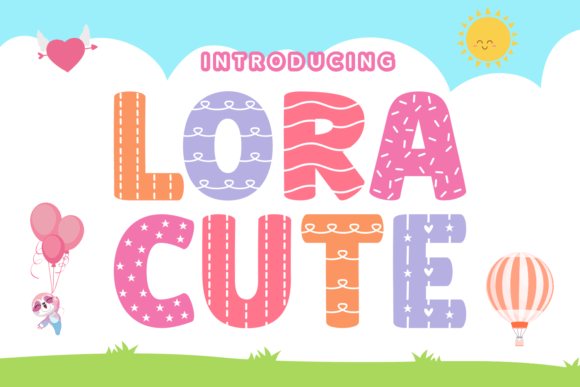
Some fonts don’t just decorate your words—they add a sense of personality, playfulness, and pure joy. Lora Cute is exactly that kind of font: whimsical, decorative, and full of cheerful energy that instantly transforms any design into something more inviting and delightful.
Whether you’re designing kids’ book covers, sweets packaging, party invitations, or playful brand logos, Lora Cute brings a youthful vibe that’s perfect for projects meant to make people smile.
What is Lora Cute Font?
Lora Cute is a decorative display font inspired by playful, hand-lettered styles. While the original Lora font is a balanced, modern serif created for editorial design and digital readability, Lora Cute spins off in a completely different direction: it’s crafted to be fun, lighthearted, and packed with personality.
With its curvy strokes, whimsical flourishes, and friendly shapes, Lora Cute doesn’t just fill space—it fills it with charm and creativity.
Why Designers Love Lora Cute
In design, fonts do more than display words—they create mood, style, and emotion. Here’s why so many designers love Lora Cute:
✅ Cheerful personality: Instantly adds a friendly, youthful vibe.
✅ Decorative appeal: The unique swirls and playful details stand out in titles and packaging.
✅ Versatile for fun projects: Works beautifully in kids’ designs, sweets branding, crafts, and more.
✅ Easy to read: Despite its decorative style, it keeps a level of legibility that makes it usable in practical designs.
✅ Memorable: Perfect for brand names or products that want to look unique and approachable.
Simply put, Lora Cute can turn ordinary words into something special and visually captivating.
Creative Ways to Use Lora Cute Font
Because Lora Cute is decorative, it works best in designs where fun and creativity matter most. Here are a few design ideas where it truly shines:
🎉 Children’s Book Covers & Titles: Make story titles pop with character and warmth.
🍭 Sweets & Candy Packaging: Match the sugary, colorful vibe of your product.
👕 Kids’ Apparel: Add playful slogans or brand names on t-shirts, hats, and baby wear.
💌 Party Invitations & Greeting Cards: Instantly set a cheerful, festive tone.
📱 Social Media Graphics: Use for quotes, playful banners, or holiday posts.
🛍 Toy or Craft Branding: A friendly and whimsical look perfect for creative businesses.
Its joyful curves make Lora Cute perfect for short, eye-catching text that people will remember.
Fonts That Pair Well with Lora Cute
Decorative fonts are best used in moderation. Pairing them with simpler fonts keeps your design balanced and professional. Here are great fonts to combine with Lora Cute:
• Poppins: Clean, modern sans-serif that highlights the playful style.
• Montserrat: Geometric, neutral look; perfect for body text.
• Open Sans: Versatile and legible, ideal for product descriptions.
• Raleway: Stylish but subtle, works well for secondary headings.
Tip: Use Lora Cute for the main headline or brand name, and a simple sans-serif for descriptions or small print.
Tips for Designing with Lora Cute Font
✅ Use in larger sizes: Decorative details are clearest when the font isn’t too small.
✅ Add color: Bright, pastel, or candy-inspired colors make it even more fun.
✅ Keep it short: Best for titles, logos, or small text blocks, not long paragraphs.
✅ Balance with space: Leave enough room so the playful swirls don’t feel cramped.
Remember: a little decoration goes a long way, especially in packaging or branding.
Final Thoughts – Add Whimsy and Joy with Lora Cute
Lora Cute isn’t just a font—it’s a design tool to bring warmth, charm, and playful energy to any creative idea. From children’s projects to candy labels and beyond, its decorative style makes designs stand out and feel truly special.